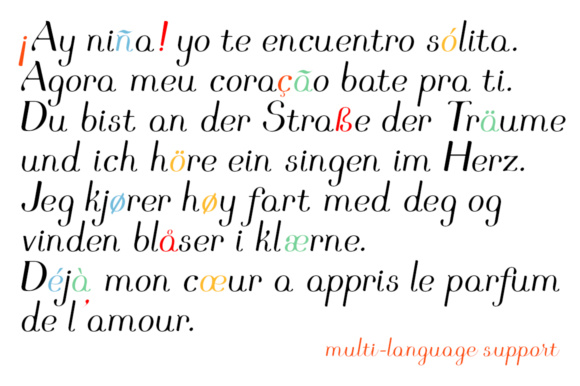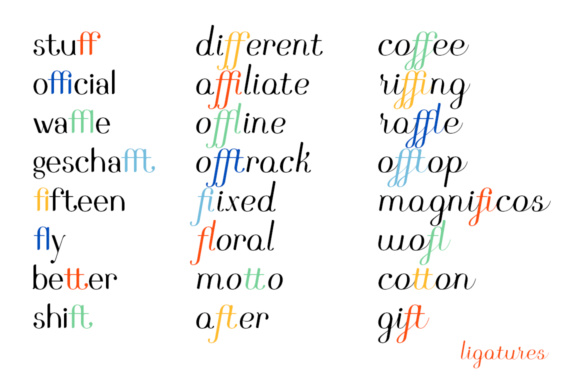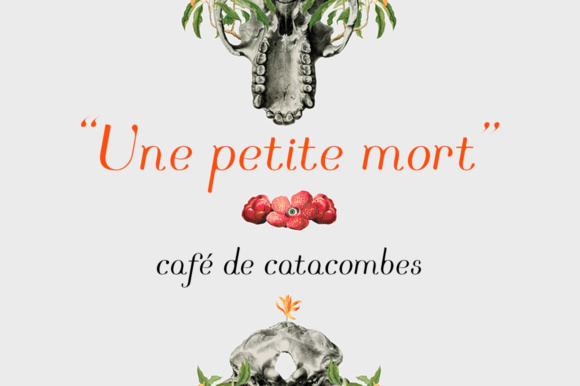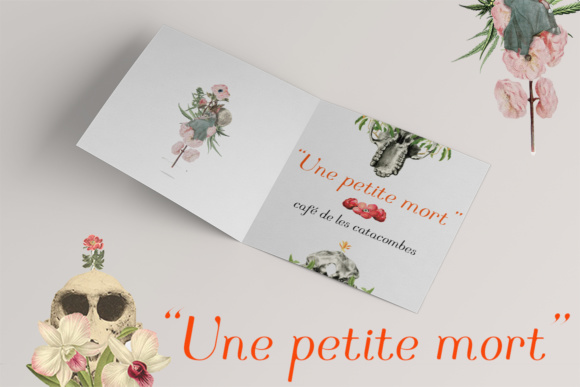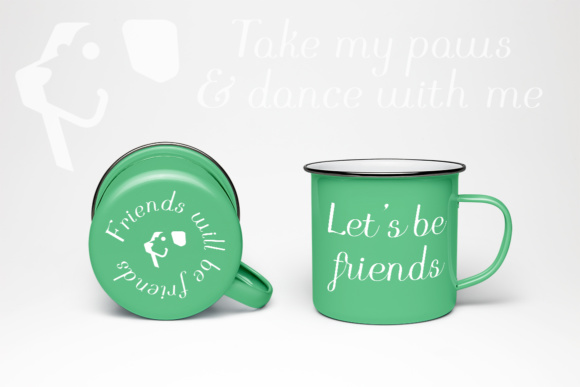
Introduction to Pedrera Italic Font
There’s nothing quite like the thrill of stumbling upon a font that perfectly captures the essence of your creative vision. For designers, it’s a moment of pure serendipity – the kind that makes all the hours spent searching for the perfect design resource worth it. And for those who’ve been searching for a font that exudes a touch of vintage charm, look no further than the Pedrera Italic Font.
This beautiful, high-quality font is a must-have for any design project that requires a clean, serif appeal. Whether you’re working on an editorial design, a magazine layout, or a creative project that demands a touch of sophistication, the Pedrera Italic Font is sure to impress. And the best part? It’s available for free download, complete with a transparent background that makes it easy to integrate into your design.
So why is the Pedrera Italic Font such a valuable resource for designers? For starters, its versatility makes it a great addition to any design arsenal. Whether you’re working on a high-end commercial project or a low-key personal creative endeavor, this font is sure to bring a level of sophistication and style that’s hard to find elsewhere.
Key Features of Pedrera Italic Font
- Unique, hand-drawn design with a high level of detail, making it an ideal design resource for creative projects.
- Designed to add a touch of elegance and sophistication to any design, making it a valuable addition to any design resource library.
Honest Review: Pedrera Italic Font
I recently stumbled upon the Pedrera Italic Font while searching for a unique design resource for my creative project. I was excited to download it for free, and I must say, it did not disappoint.
One of the things that stood out to me was the high quality of the font. It has a beautiful, elegant feel to it that is perfect for projects that need a touch of sophistication. The transparent background is also a nice touch, allowing you to easily place the text over any background image or color.
Here are some of the things that work well with the Pedrera Italic Font:
- Unique and elegant design that sets it apart from other fonts
- High quality and crisp lines make it perfect for printing
- Transparent background makes it easy to use in design projects
- Only available in a single weight, which may limit its use in certain projects
- Not as versatile as some other fonts, which may not be suitable for all design styles
Overall, I was really impressed with the Pedrera Italic Font and would definitely recommend it to anyone looking for a high-quality, elegant font for their creative project.
Tips for Getting the Most Out of Pedrera Italic Font
To get the most out of the Pedrera Italic Font, use it in conjunction with other high-quality design resources. Experiment with different font sizes, colors, and layouts to create visually appealing designs.
The Pedrera Italic Font is ideal for a variety of creative projects, including:
• Social media graphics and posts
• Presentations and reports
• Branding and marketing materials
• Print and digital publications